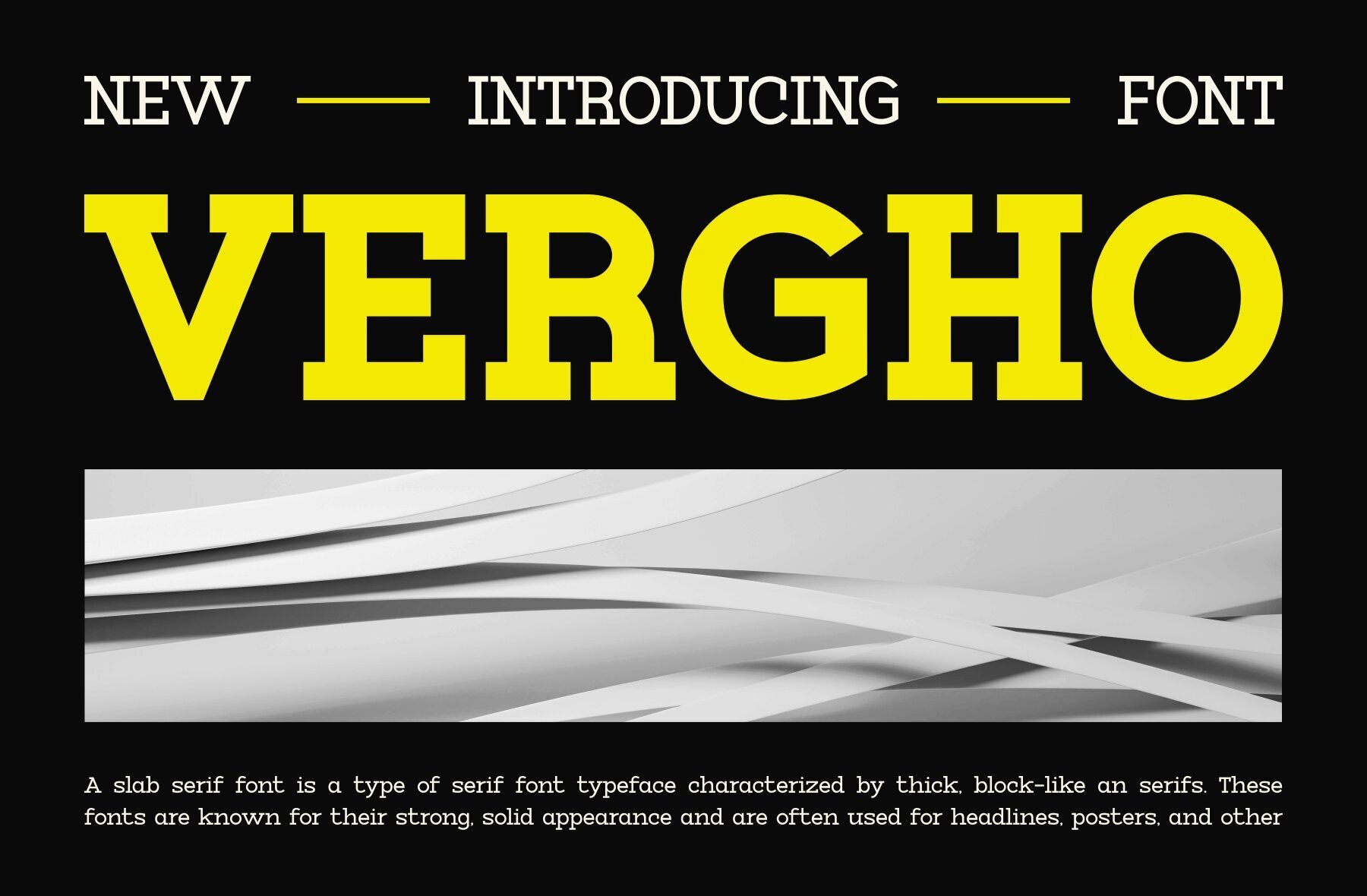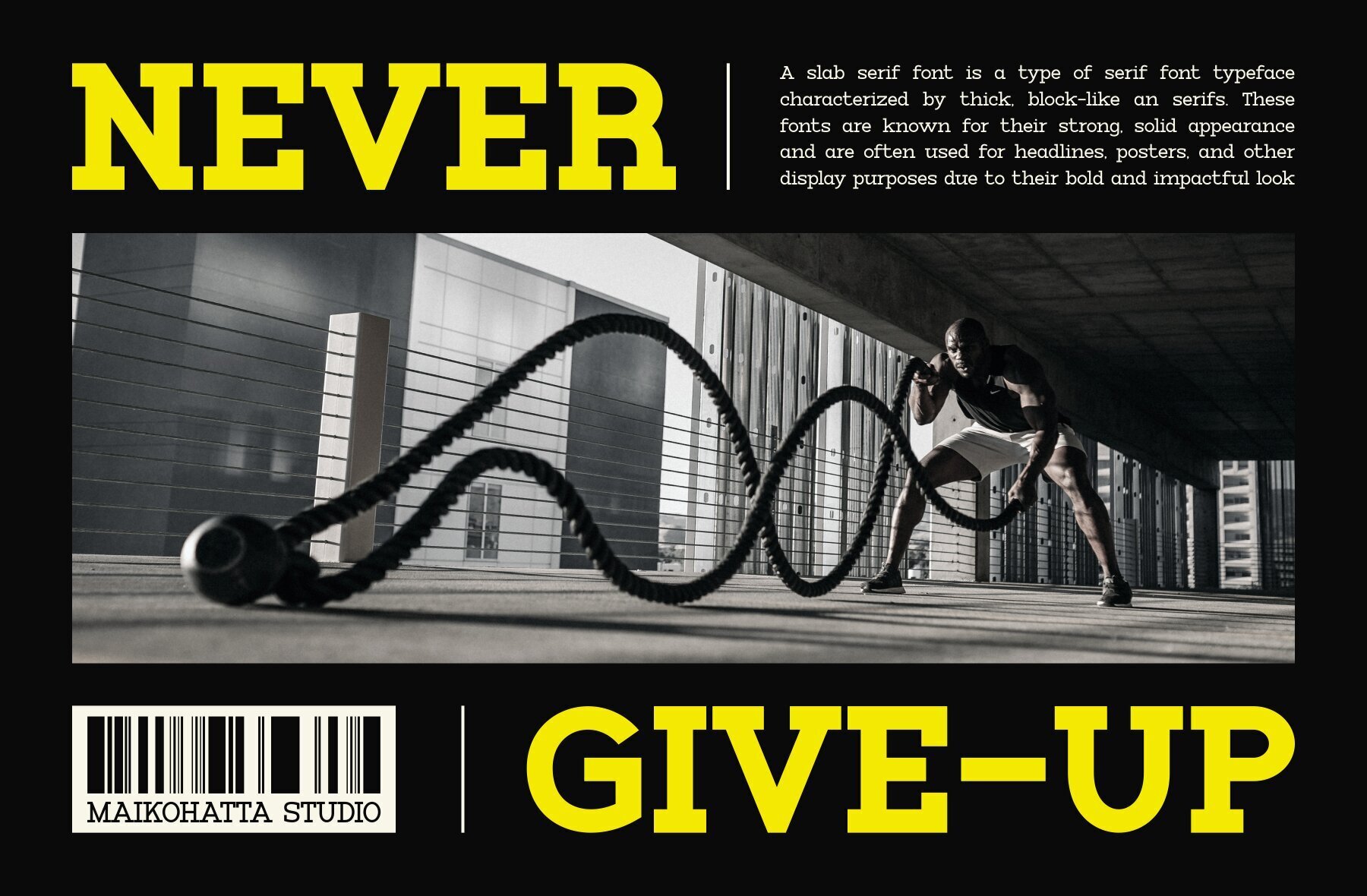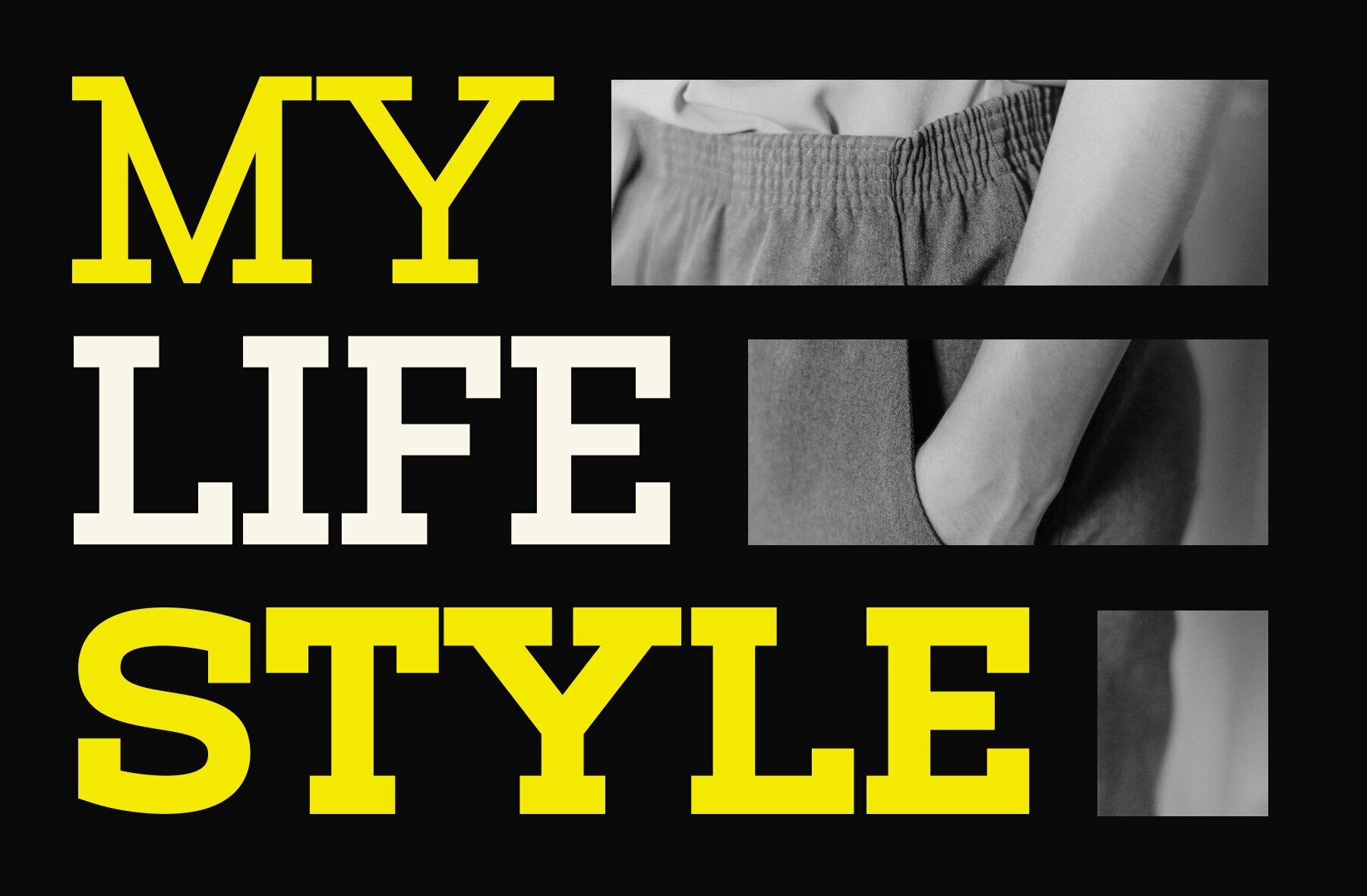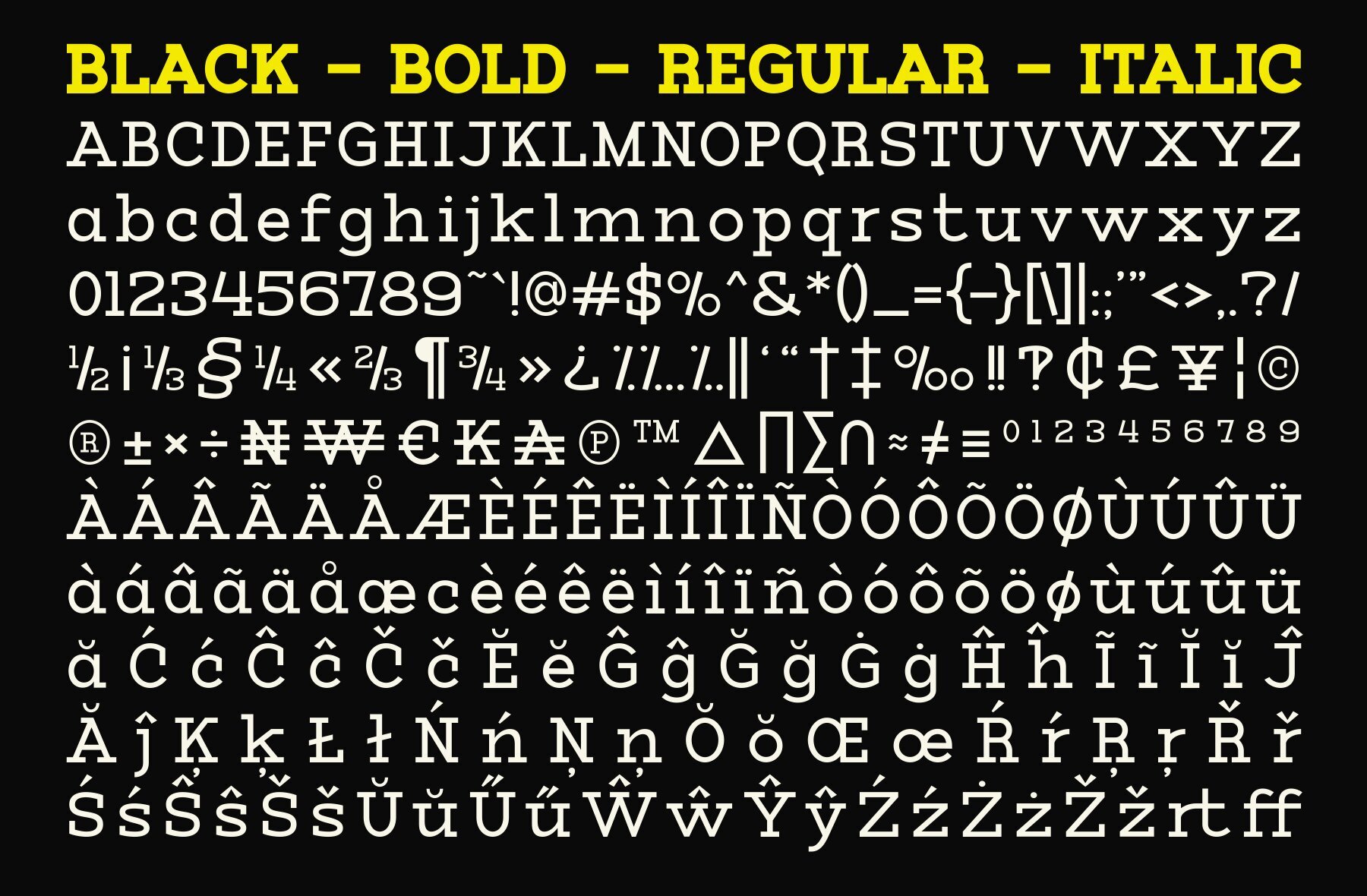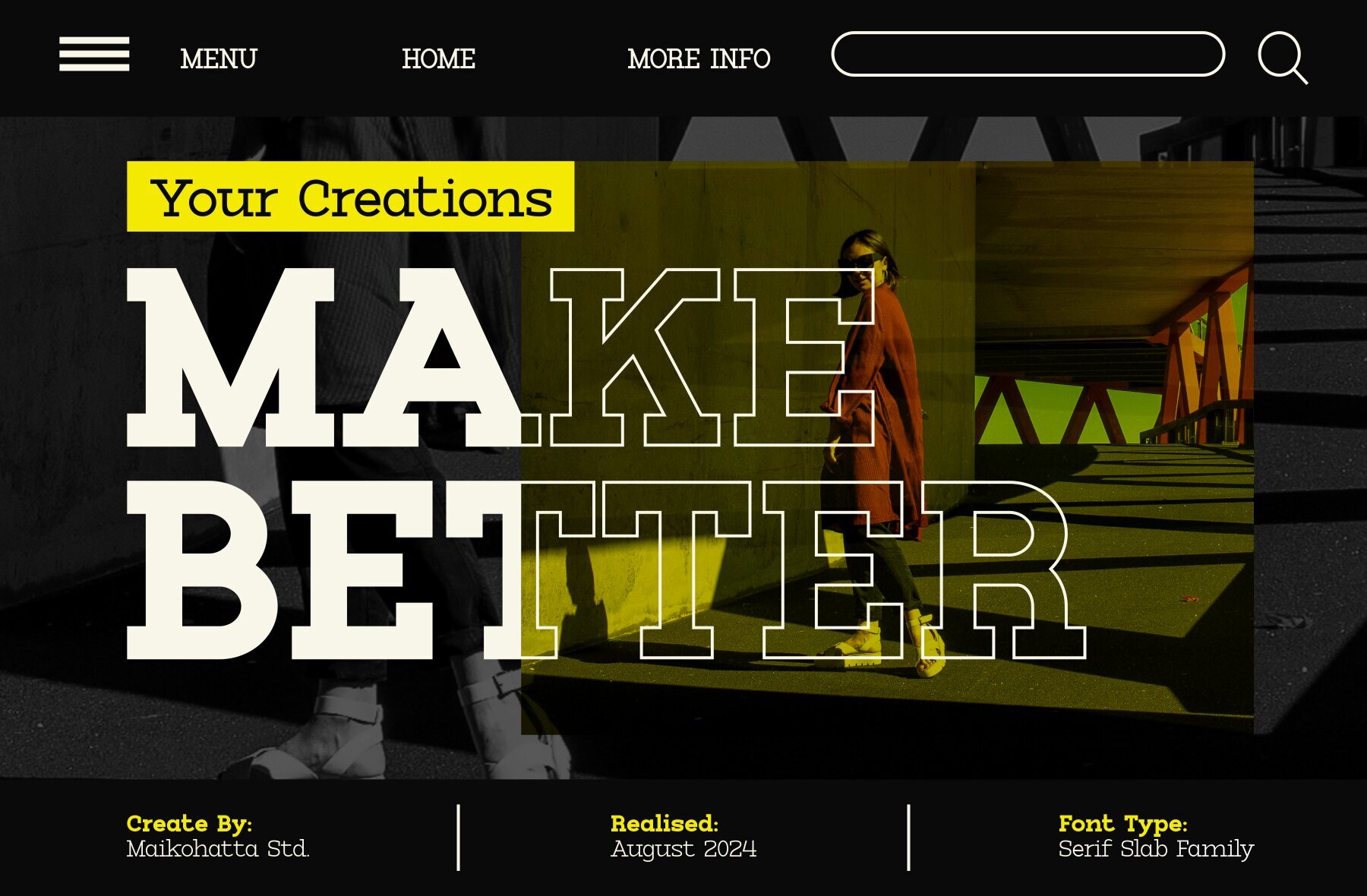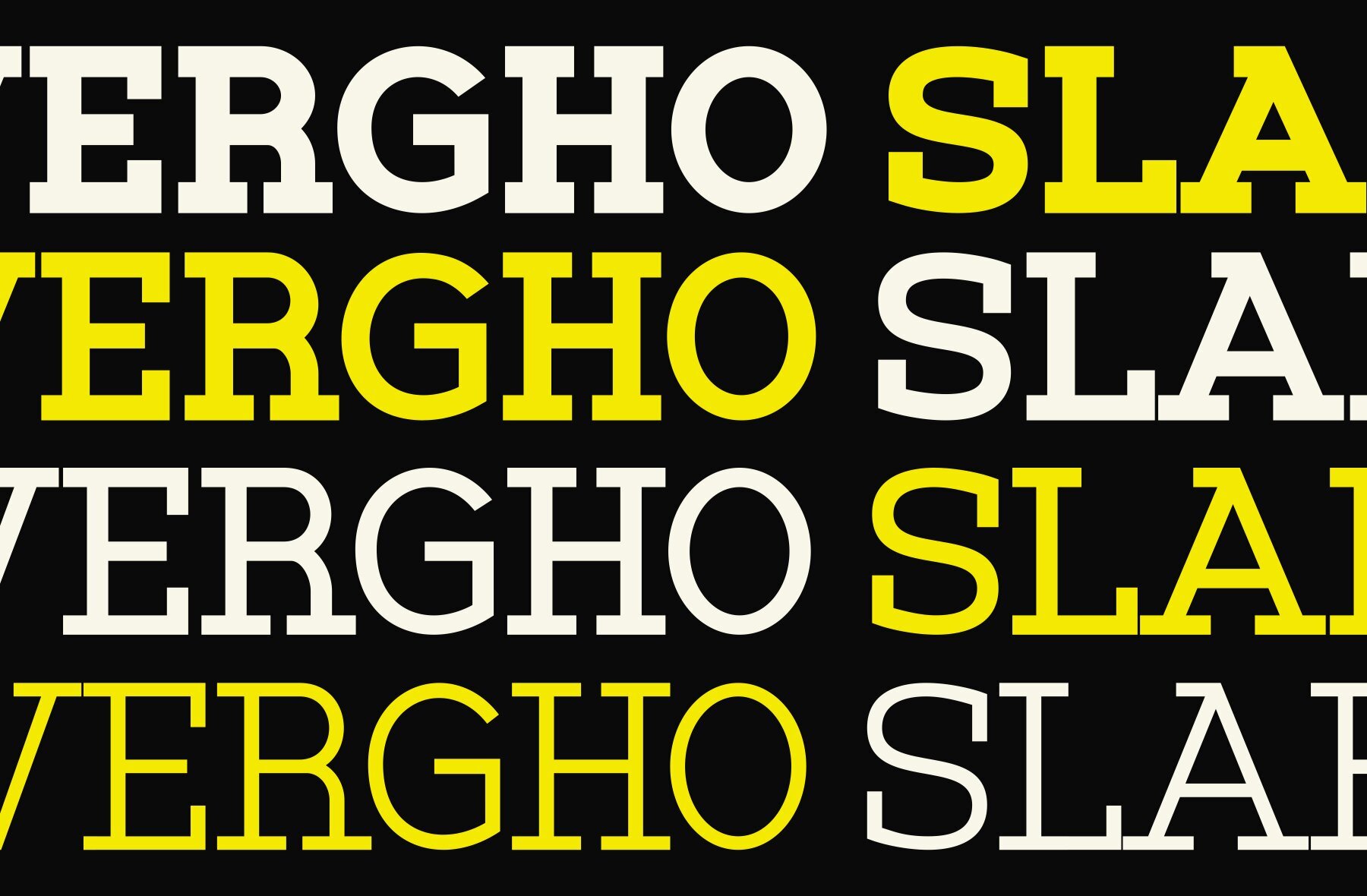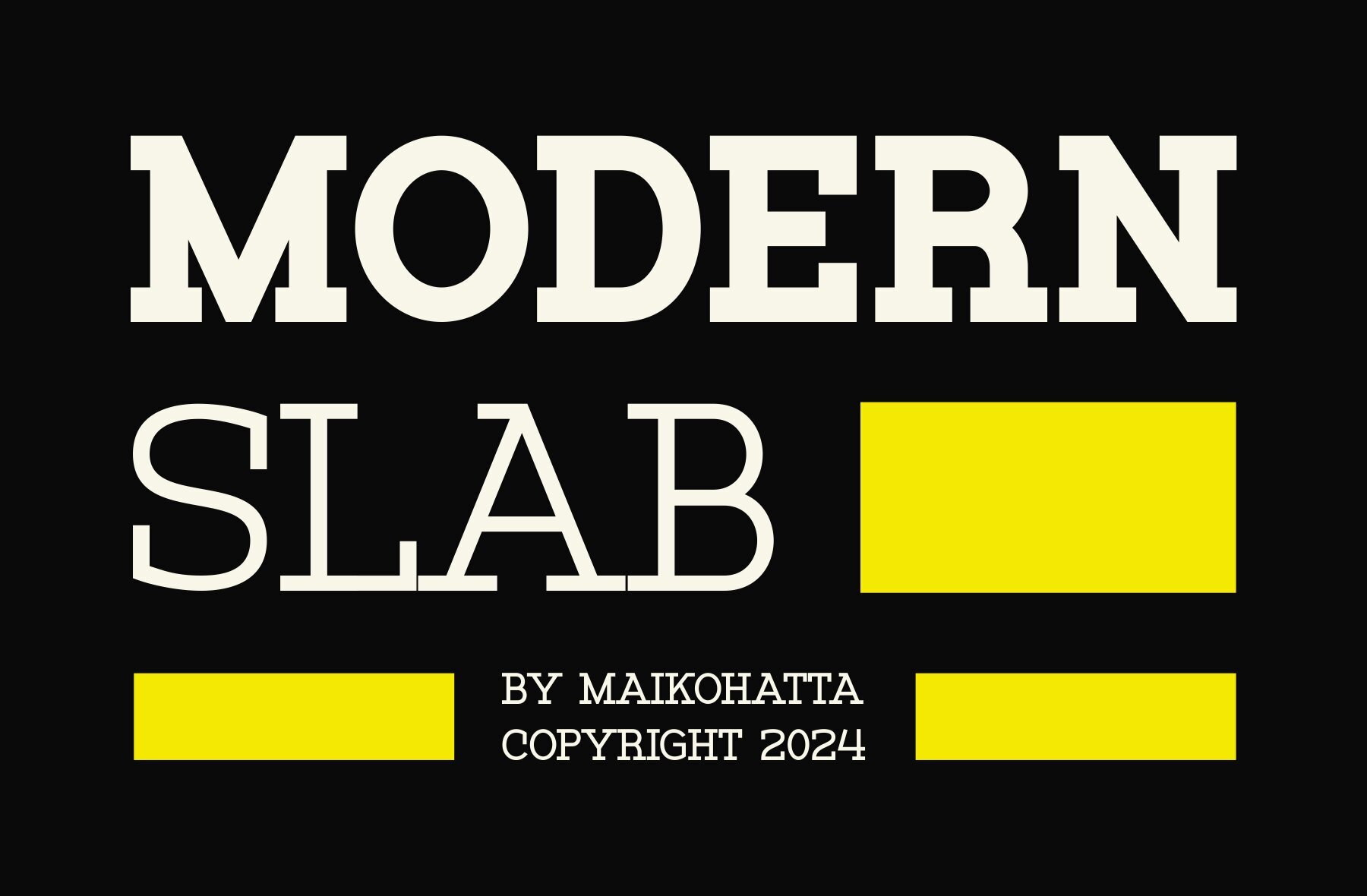
Vergho Font
Vergho is a sophisticated Modern Slab Serif font characterized by its small decorative serifs at the ends of its characters. These serifs lend a formal and contemporary aesthetic, enhancing readability and making it ideal for printed text. Serif fonts like Vergho are preferred in formal documents, books, and print publications due to their superior legibility, especially at smaller sizes.
This versatile font family includes both uppercase and lowercase letters, supports multiple languages, and features ligatures for advanced typography. Available styles within the Vergho family include Regular, Italic, Black, and Bold, providing designers with the flexibility to create diverse and impactful designs. Whether used for headlines, body text, or sophisticated print applications, Vergho delivers a blend of elegance and functionality.